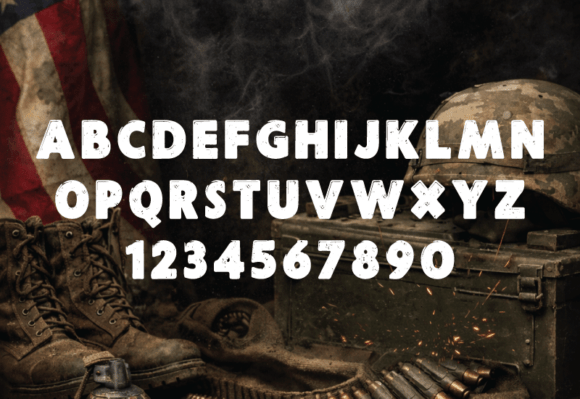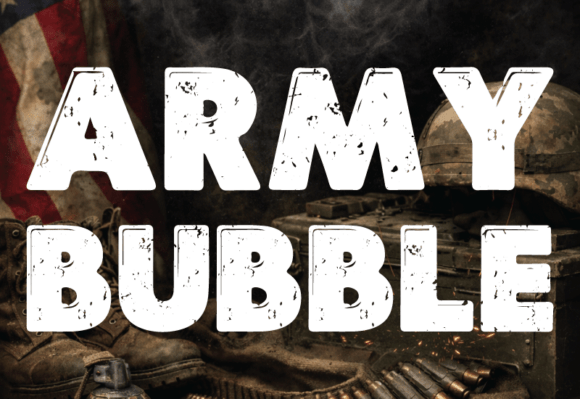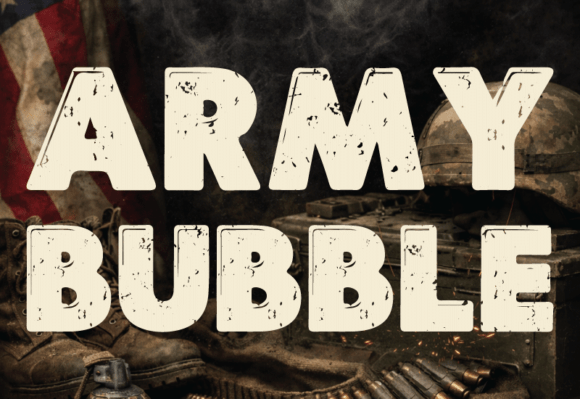
Introducing Army Bubble Font: The Ultimate Decorative Font for Bold Designs
Are you tired of using the same old fonts for your designs? Do you want to add a touch of bold military attitude with a playful twist? Look no further than the Army Bubble Font! This decorative font is a game-changer for designers and crafters who want to create eye-catching and modern designs that stand out from the crowd.
What is Army Bubble Font?
Army Bubble Font is a unique decorative font that blends the strong presence of tactical stencil design with soft, rounded bubble-style lettering. The result is a font that exudes a bold military attitude while adding playful curves and distressed texture for a unique contrast. The rough edges, worn ink details, and grunge finish give it a battlefield-inspired feel that’s perfect for designs that need a tough and creative look.
Key Features of Army Bubble Font
- Bold Military Attitude: Army Bubble Font has a strong and bold presence that’s perfect for designs that require a military-inspired look.
- Soft and Rounded Bubble-Style Lettering: The font features soft and rounded bubble-style lettering that adds a playful touch to your designs.
- Distressed Texture: The font has a distressed texture that gives it a worn and rugged look, perfect for designs that need a grunge or vintage feel.
- Rough Edges and Worn Ink Details: The font features rough edges and worn ink details that add to its battlefield-inspired feel.
- Playful Curves: The font’s bubble structure makes it eye-catching and modern, perfect for designs that need a creative and playful touch.
Use Cases for Army Bubble Font
Army Bubble Font is a versatile font that can be used for a wide range of design projects, including:
- Gaming Thumbnails: The font’s bold and playful design makes it perfect for gaming thumbnails that need to stand out from the crowd.
- Streetwear Designs: The font’s military-inspired look and playful curves make it a great fit for streetwear designs that need a bold and creative look.
- Posters: Army Bubble Font is perfect for posters that need a bold and eye-catching headline or title.
- Social Media Graphics: The font’s modern and playful design makes it perfect for social media graphics that need to grab the attention of your audience.
- Kids’ Military Themes: The font’s playful curves and military-inspired look make it a great fit for kids’ military-themed designs, such as party invitations or activity sheets.
- Bold Branding Projects: Army Bubble Font is perfect for branding projects that need a bold and creative look, such as logos, business cards, or packaging designs.
Why Choose Army Bubble Font?
Army Bubble Font is a unique and versatile font that offers a lot of benefits for designers and crafters. Here are just a few reasons why you should choose Army Bubble Font for your next design project:
- Unique Design: Army Bubble Font has a unique design that blends bold military attitude with playful curves and distressed texture.
- High-Quality: The font is high-quality and can be used for a wide range of design projects, from print to digital.
- Versatile: The font is versatile and can be used for a wide range of design projects, from gaming thumbnails to streetwear designs.
Army Bubble Font is a decorative font that’s perfect for designers and crafters who want to add a bold and playful touch to their designs. With its unique blend of military attitude and playful curves, this font is sure to stand out from the crowd. Whether you’re working on a gaming thumbnail, streetwear design, poster, social media graphic, or branding project, Army Bubble Font is a great choice. So why wait? Download Army Bubble Font today and start creating bold and eye-catching designs that demand attention!